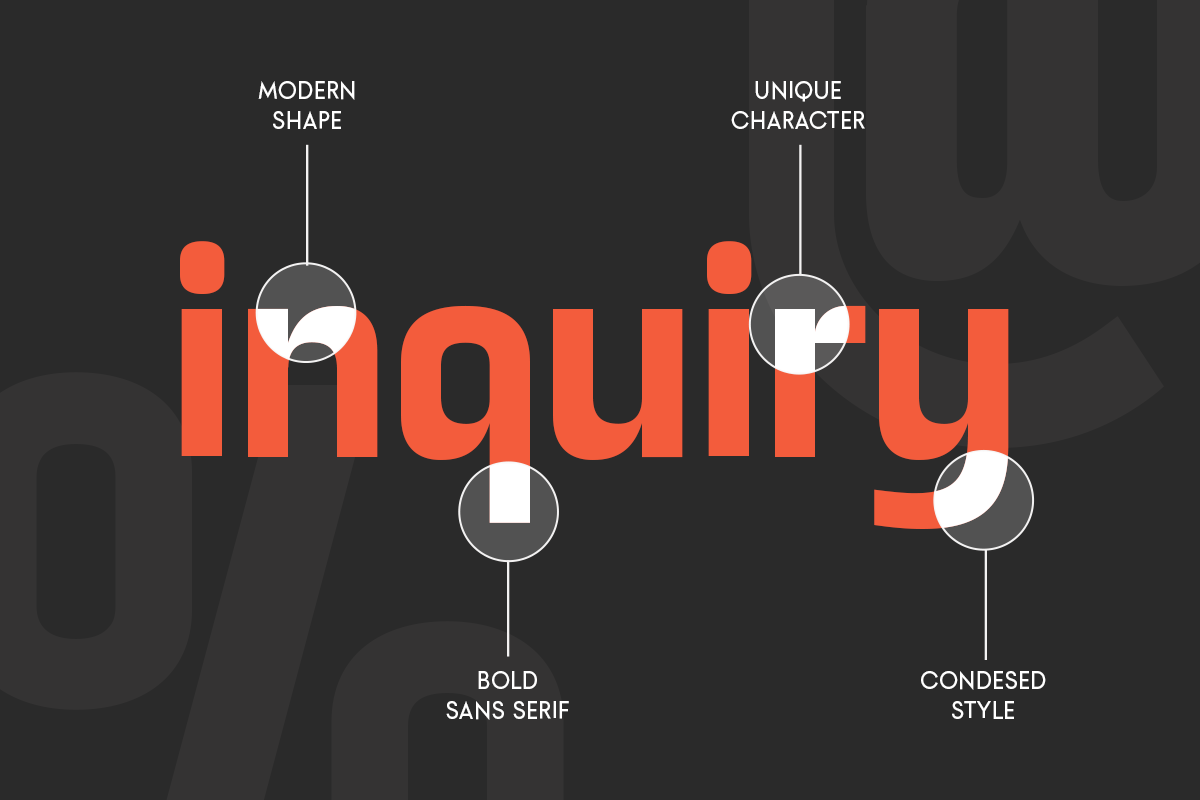
Jango - Bold Condensed Font for Modern Tech Branding 🚀
Meet Jango, a bold, modern condensed font crafted for brands that want to make a sleek and confident statement. With strong vertical proportions and sharp character styling, Jango – Modern Condensed Logo Font is made for standout logos, clean layouts, and professional branding.
We designed Jango with clarity and compact strength in mind—ideal for brands that need to look modern and impactful in limited space. Whether you’re working on a tech startup, digital agency, fashion label, or corporate identity, Jango offers the perfect mix of condensed efficiency and bold aesthetics.
✔ Condensed structure to save space and stay stylish
✔ Perfect for modern logos, branding, packaging, and UI
✔ Clean, bold, and professional with a distinctive edge
Detailed view of Jango’s letterform anatomy showcasing modern condensed style.
Real estate business card design using Jango modern condensed font style.
Promo display of Jango logo font in regular and italic with modern architecture background.
Stone Enterprise poster with bold title and business statement using Jango condensed font.
Construction-themed website header with bold text using Jango condensed font.
Ramira smart trading branding using Jango font in bold red and black color scheme.
Font comparison of Jango regular and italic styles in modern condensed layout.
Highlighted words with tags using Jango condensed font for creative project.
Trusted Partnership text design with bold words and business-related tags in motion.
Full Jango alphabet set in uppercase and lowercase with bold condensed styling.
Number and symbol set of Jango font with punctuation on orange background.
Jango font multilingual support display on white background with bold red letters.